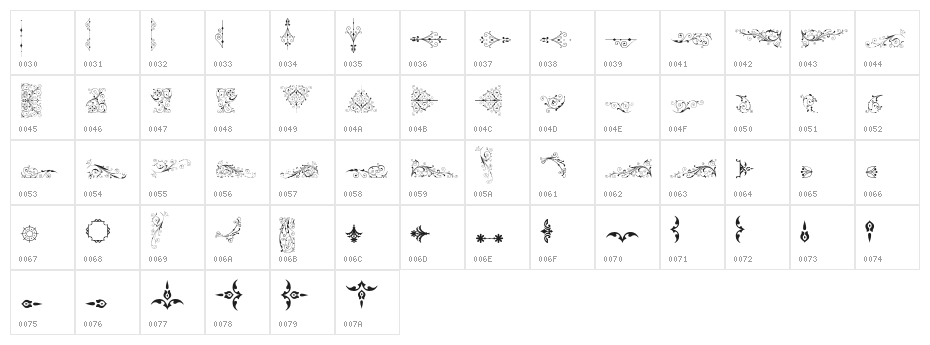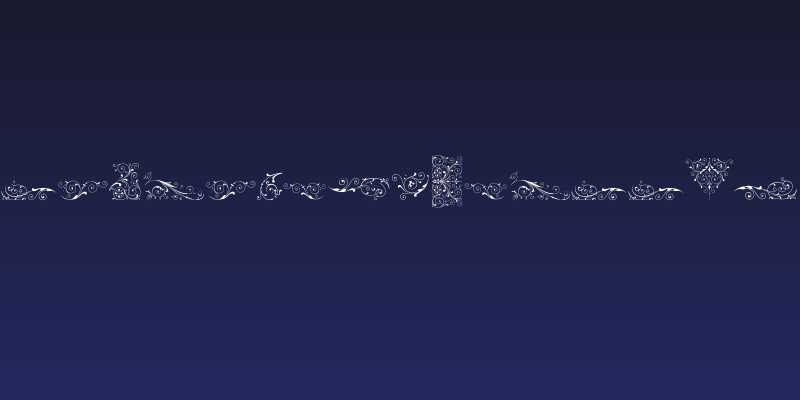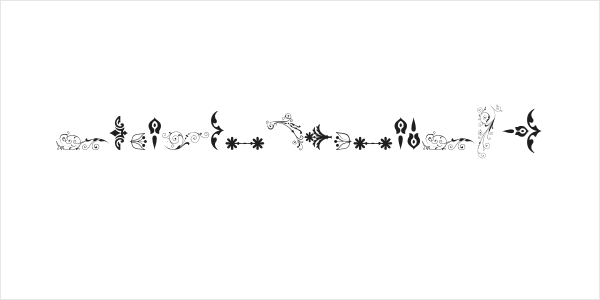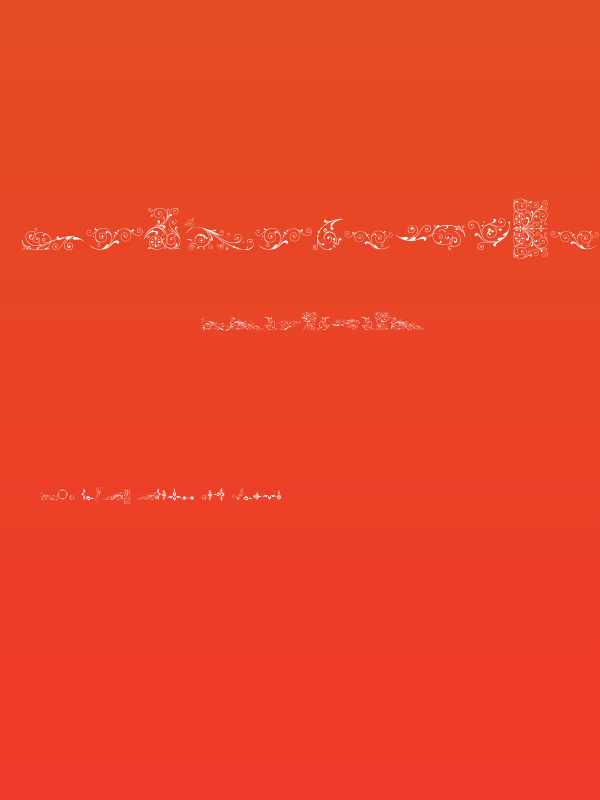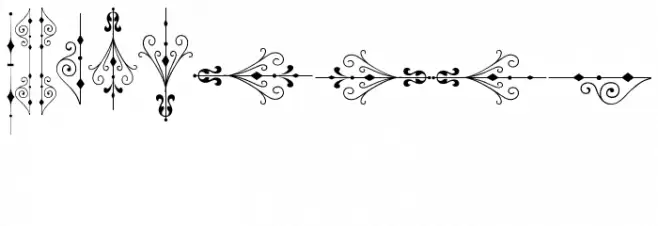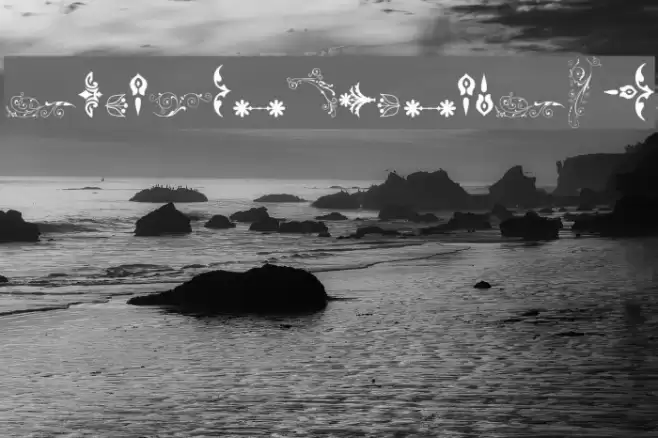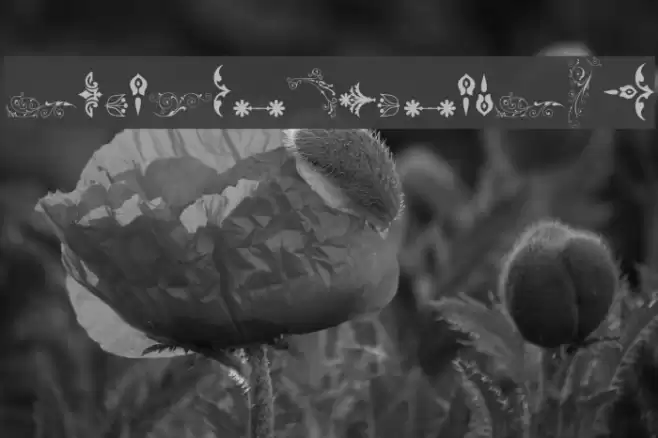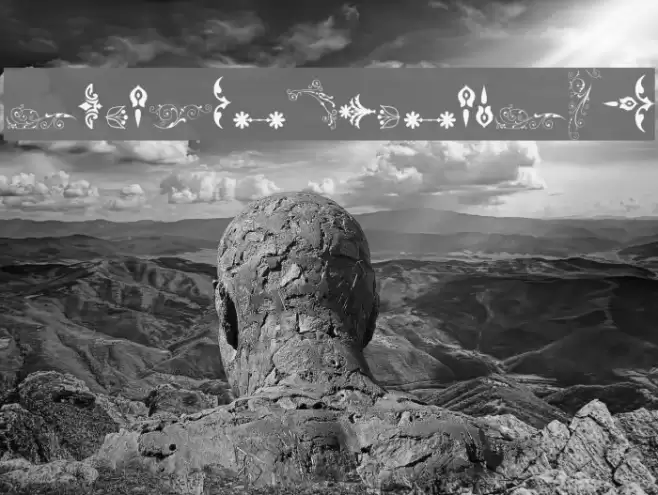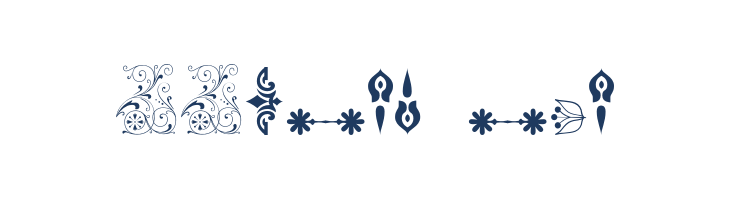
SoftOrnamentsSix Font
A decorative collection of ornate, flourish-based glyphs and ornaments featuring intricate swirls, floral motifs, and symmetrical designs. The elements range from light, delicate linework to bold, filled shapes, suitable for embellishing text or creating borders.
| Overall Style | Decorative, Vintage, Ornamental |
| Use Case | Borders, Dividers, Accents, Decorative elements |
| Proposed Projects | Wedding invitations, certificates, vintage packaging, book covers, decorative borders, and graphic design accents. |